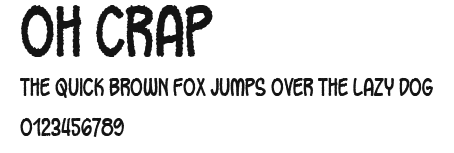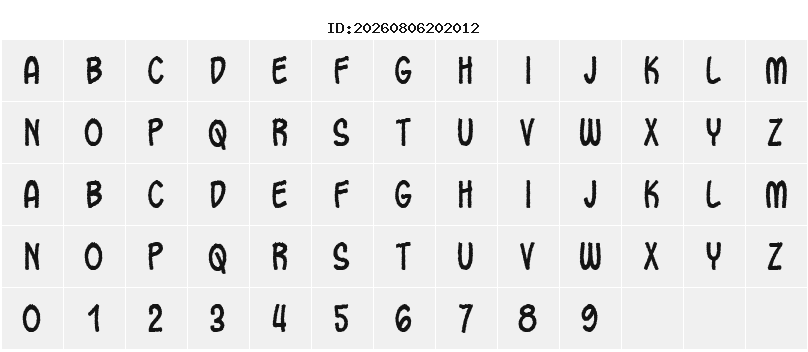
Oh Crap Preview
• Font Name: Oh Crap
About Oh Crap.ttf
Oh Crap.ttf is a modern, elegant sans-serif font designed for ultimate readability and visual harmony. Perfect for branding, headlines, web design, and print materials.